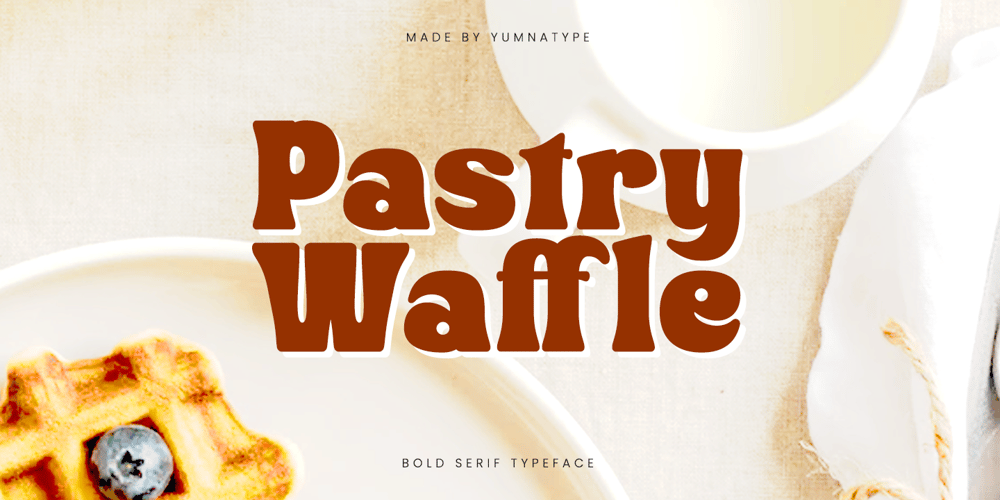
Pastry Waffle
Pastry Waffle font
Pastry Waffle Font Family was designed by Donis Miftahudin and published by Yumna Type. Pastry Waffle contains 1 styles and family package options. Pastry Waffle is a bold and contemporary serif font that commands attention with its strong presence and modern style. With its bold weight and visible letter contrast, this font is perfect for projects seeking a striking and impactful typographic statement. Each letter in Pastry Waffle is meticulously crafted with clean lines and precise serifs, exuding a sense of confidence and sophistication. The bold weight of the font adds a sense of strength and solidity. What sets Pastry Waffle apart is its visible letter contrast, which adds visual interest and depth to the text. This contrast enhances legibility and draws attention to key elements. In addition, enjoy the features here.Features: Ligatures Stylistic Sets Multilingual Supports PUA Encoded Numerals and Punctuations Pastry Waffle fits in headlines, logos, posters, flyers, branding materials, print media, editorial layouts, and many more designs. Find out more ways to use this font by taking a look at the font preview.Thanks for purchasing our fonts. Hopefully, you have a great time using our font. Feel free to contact us anytime for further information or when you have trouble with the font. Thanks a lot and happy designing.